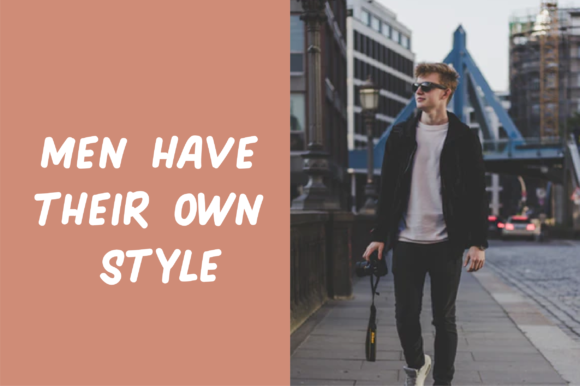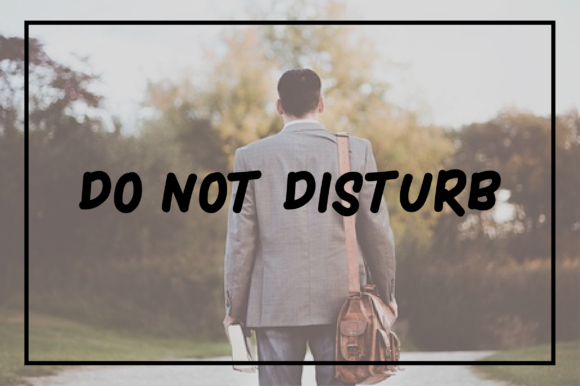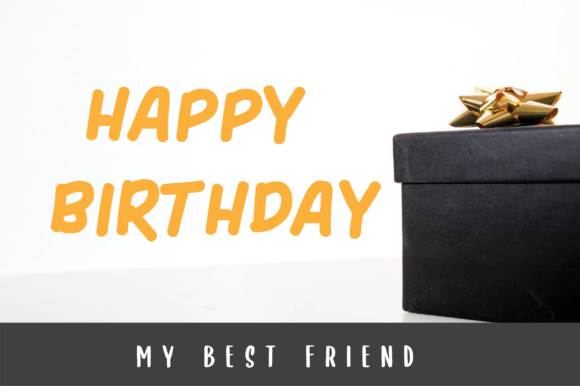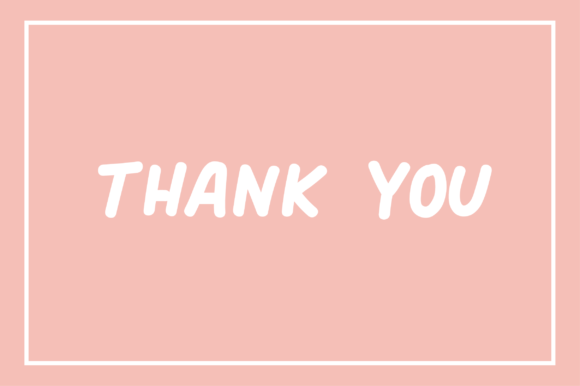
Introduction to Margina Font
Have you ever found yourself stuck in a design rut, desperately searching for that one font to elevate your creative project from meh to mesmerizing? I know I have. It was on one such frustrating evening that I stumbled upon the Margina Font, and my design world was forever changed.
The Margina Font is a breath of fresh air in the world of typography, boasting a unique style that’s equal parts sweet and cool. With its modern vibe, this font is sure to add a touch of sophistication to any design project. And the best part? It’s available for free download, making it an invaluable resource for designers of all levels.
Whether you’re working on a high-quality design project or simply looking for a design resource to spice up your social media graphics, the Margina Font is an excellent choice. Its transparent background and crisp lines make it perfect for creating eye-catching visuals that demand attention. In this article, we’ll dive deeper into the world of Margina Font and explore its many uses and benefits for designers.
Key Features of Margina Font
- Transparent background, allowing for seamless integration into creative projects with complex designs.
- High-quality design resource, perfect for designers and artists working on a wide range of creative projects.
- Includes a range of styles and weights, providing designers with flexibility and creative freedom.
- Designed with a high resolution (up to 300 DPI) for crisp and clear display, even in large formats.
- Part of a comprehensive font family, offering a wide range of characters and glyphs for complex design projects.
Honest Review: Margina Font
I recently stumbled upon the Margina Font, and I must say it’s a real gem for designers. The moment I downloaded it, I knew I had to try it out in a creative project.
- What works well: ✨ The font is incredibly versatile, with a beautiful mix of script and modern elements. It’s perfect for designing logos, titles, or even entire brand identities.
However, I did encounter a few limitations. ⚠️ The font is only available in a limited number of styles, which may not be ideal for designers who need a wide range of options.
Overall, I’m impressed with the Margina Font. It’s a high-quality design resource that’s perfect for creative projects. The fact that it’s free to download is just the icing on the cake.
As a designer, I’d definitely recommend the Margina Font to anyone looking for a stylish and versatile font to add to their design arsenal.
Margina Font
The Margina Font is a high-quality design resource perfect for creative projects. With its transparent background, it can be easily layered and customized to suit your needs.
Tips for Getting the Most Out of Margina Font
Experiment with different font sizes, colors, and layering techniques to achieve unique and creative results. You can also combine the Margina Font with other design elements to create a cohesive and visually appealing design.
The Margina Font is ideal for use in logos, branding materials, and other creative projects where a high-quality, transparent background is required. It’s also great for use in digital designs, such as website headers, social media graphics, and email templates.